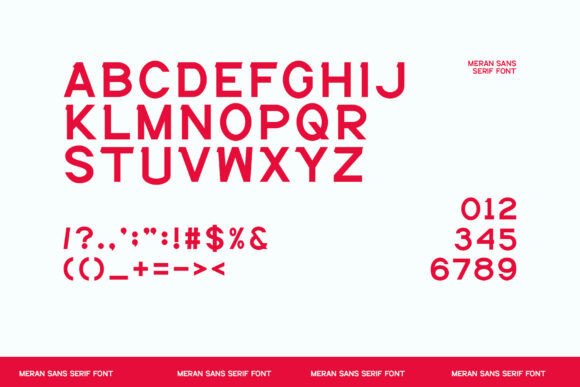
Meran Font: Elevate Your Designs with Elegance and Sophistication
When it comes to creating visually stunning designs, the right font can make all the difference. If you’re looking for a unique and elegant sans serif font that can add a touch of sophistication to your projects, look no further than Meran Font. In this article, we’ll explore the features and benefits of Meran Font, and how it can be used to create beautiful designs for a variety of applications.
What is Meran Font?
Meran Font is a modern sans serif font that boasts a unique and elegant design. Its clean lines, subtle curves, and balanced proportions make it perfect for use in a wide range of design projects, from wedding invitations and greeting cards to logos and branding materials. Meran Font is designed to provide a personalized touch to your designs, setting it apart from more traditional fonts.
Key Features of Meran Font
- Unique and Elegant Design: Meran Font features a distinctive sans serif design that is both modern and sophisticated.
- Clean Lines and Subtle Curves: The font’s clean lines and subtle curves create a beautiful, refined look that is perfect for a variety of design applications.
- Balanced Proportions: Meran Font’s balanced proportions ensure that it remains legible and visually appealing, even at small sizes.
- Multi-Language Support: Meran Font supports multiple languages, making it a great choice for designers working on international projects.
Uses for Meran Font
Meran Font’s versatility and elegance make it suitable for a wide range of design applications. Here are some of the ways you can use Meran Font to elevate your designs:
Wedding Invitations and Stationery
Meran Font is perfect for creating beautiful wedding invitations, thank you cards, and other stationery items. Its elegant design and refined look make it ideal for formal events and special occasions.
Logos and Branding
Meran Font can be used to create stunning logos and branding materials that reflect your company’s values and personality. Its unique design and balanced proportions make it perfect for creating a lasting impression.
Greeting Cards and Postcards
Meran Font is a great choice for designing greeting cards and postcards for special occasions such as birthdays, holidays, and anniversaries. Its clean lines and subtle curves create a beautiful, refined look that is sure to impress.
Digital and Print Media
Meran Font can be used in a variety of digital and print media, including brochures, flyers, posters, and social media graphics. Its legibility and visual appeal make it perfect for communicating your message effectively.
Benefits of Using Meran Font
Meran Font offers a range of benefits that make it an excellent choice for designers. Here are some of the advantages of using Meran Font:
Elegance and Sophistication
Meran Font adds a touch of elegance and sophistication to your designs, setting it apart from more traditional fonts.
Versatility
Meran Font is versatile and can be used in a wide range of design applications, from wedding invitations to logos and branding materials.
Legibility
Meran Font’s balanced proportions and clean lines ensure that it remains legible, even at small sizes.
Unique Design
Meran Font’s unique design makes it perfect for designers looking to create distinctive and memorable designs.
Tips for Using Meran Font
Here are some tips for using Meran Font effectively in your designs:
Pair with Complementary Fonts
Meran Font can be paired with complementary fonts to create a beautiful, harmonious design. Experiment with different font combinations to find the perfect match.
Experiment with Colors and Textures
Meran Font looks great in a variety of colors and textures. Experiment with different colors and textures to add depth and interest to your designs.
Use for Headings and Titles
Meran Font is perfect for use in headings and titles, where its elegance and sophistication can be showcased.
Keep it Simple
Meran Font is a versatile font that works best when used simply. Avoid over-accessorizing your design, and let the font speak for itself.
Meran Font is a unique and elegant sans serif font that is perfect for designers looking to add a touch of sophistication to their projects. Its versatility, legibility, and beautiful design make it suitable for a wide range of design applications, from wedding invitations to logos and branding materials. With its clean lines, subtle curves, and balanced proportions, Meran Font is sure to elevate your designs and leave a lasting impression.